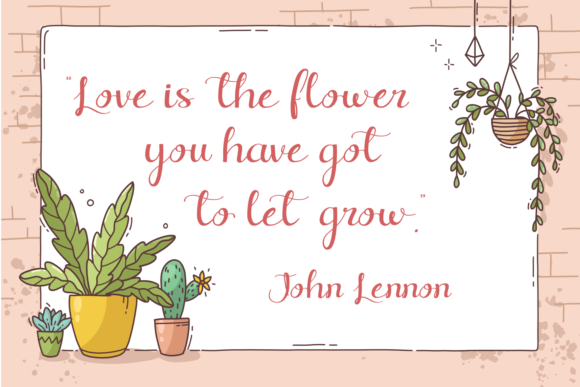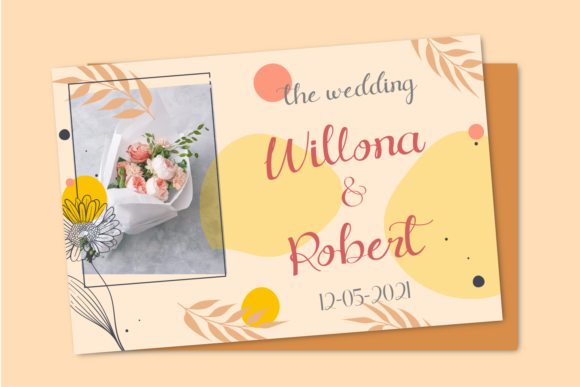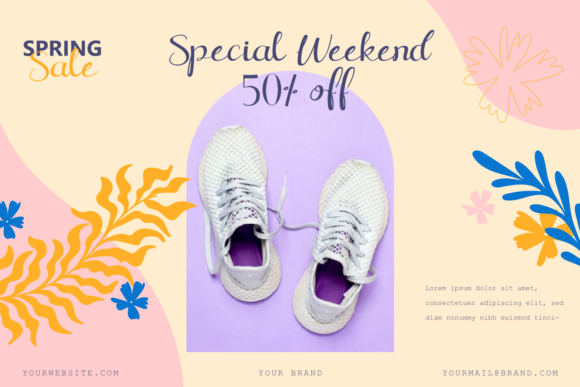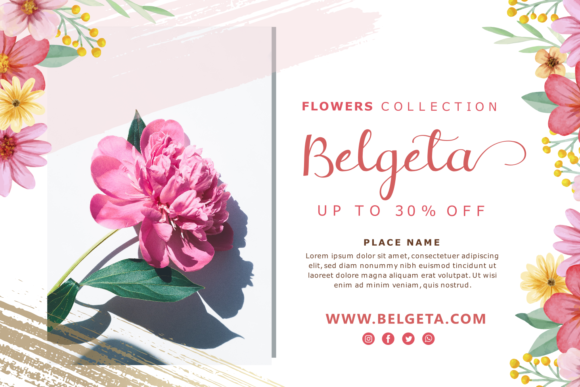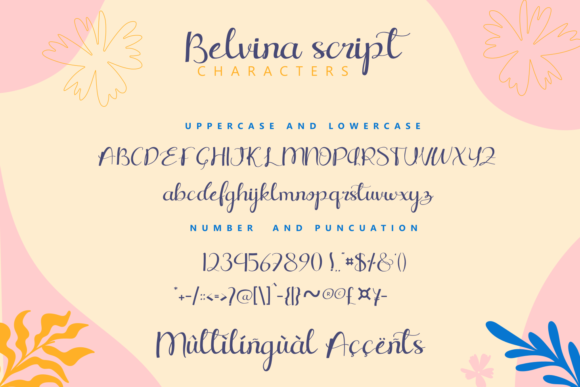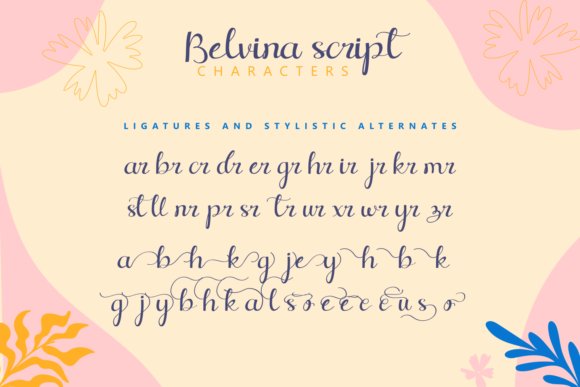
The Perfect Script: Unleashing the Beauty of Belvina Font
There’s something magical about holding a handwritten note from a loved one, the way the pen strokes dance across the page, and the personal touch it conveys. For designers, capturing that same essence in digital form can be a challenge, but what if you could achieve that same level of romance and elegance with a single font?
Enter the Belvina Font, a stunning modern script font designed to bring a touch of personality to your designs. Whether you’re crafting wedding invitations, thank you cards, or logos, Belvina Font’s beautiful and romantic flair is sure to leave a lasting impression. With its PUA encoding, accessing all the glyphs and swashes is a breeze, giving you the creative freedom to unleash your imagination.
For designers seeking to add a unique and personal touch to their projects, the Belvina Font is a valuable asset. Its versatility and elegance make it an ideal choice for a wide range of applications, from weddings to greeting cards, and everything in between.
Belvina Font Key Features
- Unique Characteristics: Belvina Font features a unique blend of modern and elegant design elements, making it perfect for creative projects.
Belvina Font Review
As a designer, I was excited to dive into the Belvina font and see if it lived up to its promise. Here’s my honest review.
- Belvina has a unique and modern aesthetic that’s perfect for contemporary designs.
- The font is highly legible, even at small sizes, making it ideal for body text and headlines.
- The font’s versatility shines through in its various weights and styles, offering endless possibilities for creative expression.
- Belvina’s irregular letterforms can make it challenging to read in certain contexts, particularly in long blocks of text.
- The font’s modernity may not be to everyone’s taste, and some designers may find it too trendy or overused.
- The font’s lack of ligatures can lead to awkward letter combinations and reduced readability in certain cases.
Overall, I’d say Belvina is a solid choice for designers looking to add a touch of modernity to their projects. While it may not be perfect, its unique aesthetic and versatility make it a great option for those who want to stand out from the crowd. Just be mindful of its limitations and use it wisely.
Getting the Most Out of Belvina Font
Belvina Font is a beautiful, elegant script font perfect for wedding invitations, greeting cards, and other creative projects.
Alternatives to Belvina Font for Designers
Great Vibes Font is a modern, elegant script font perfect for creating a luxurious and sophisticated look. It’s ideal for use in branding, advertising, and editorial design.
Compared to Belvina Font, Great Vibes Font has a more refined and polished appearance, making it suitable for high-end designs. However, it may lack the playful, handwritten feel of Belvina Font.
Alex Brush Font is a beautiful, handwritten font that’s great for creating a personal and artistic look. It’s perfect for use in invitations, wedding designs, and other creative projects.
Compared to Belvina Font, Alex Brush Font has a more whimsical and expressive feel, making it ideal for projects that require a touch of personality. However, it may not be as versatile as Belvina Font in terms of usage.